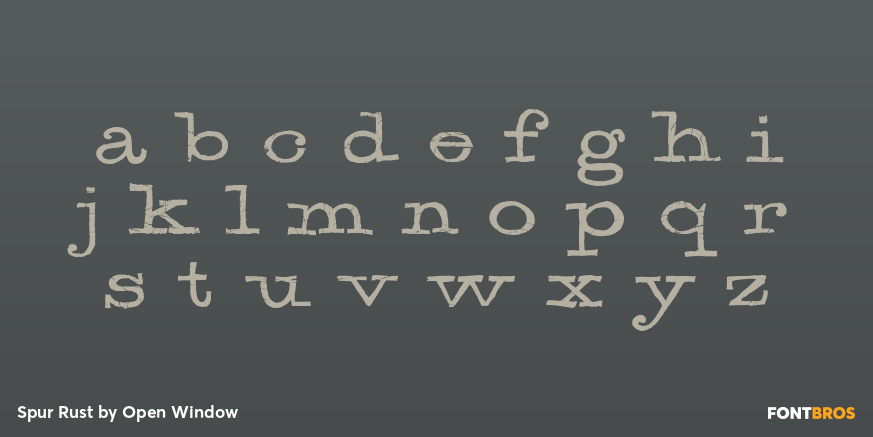
Spur Rust
Font Family by Open Window
Spur Rust is a disheveled take on a spicy classic Hellenic Wide. The characters were loosely drawn and then given a scratched effect for authenticity. Victory awaits your design applications with Spur Rust.